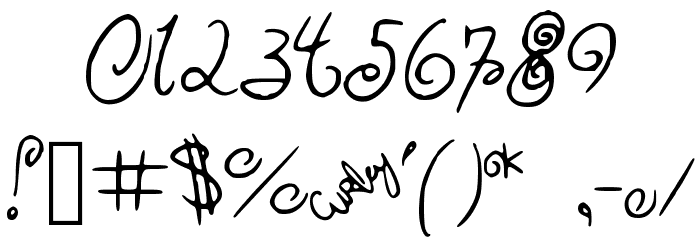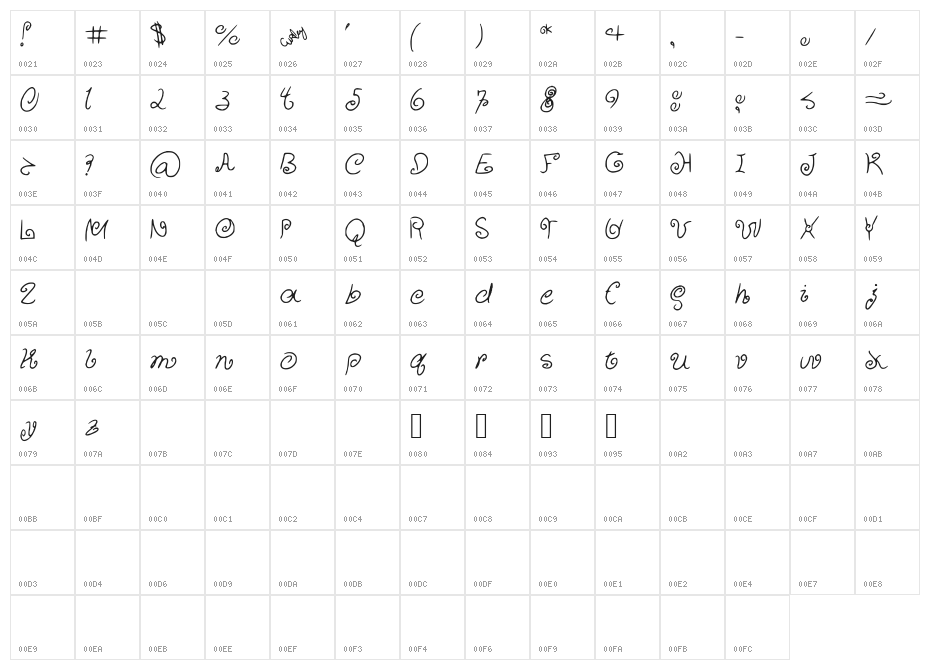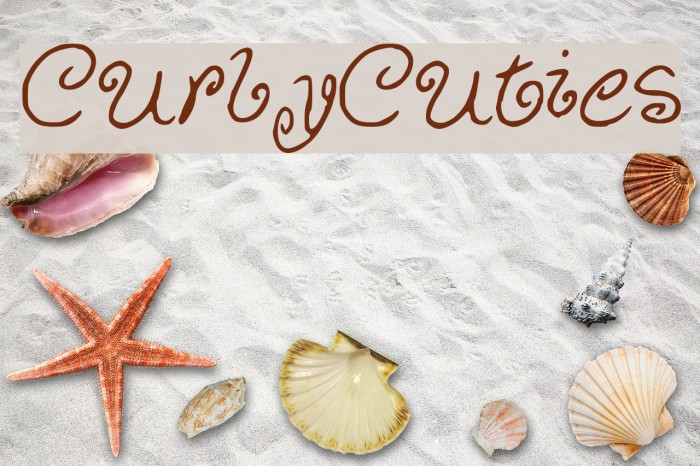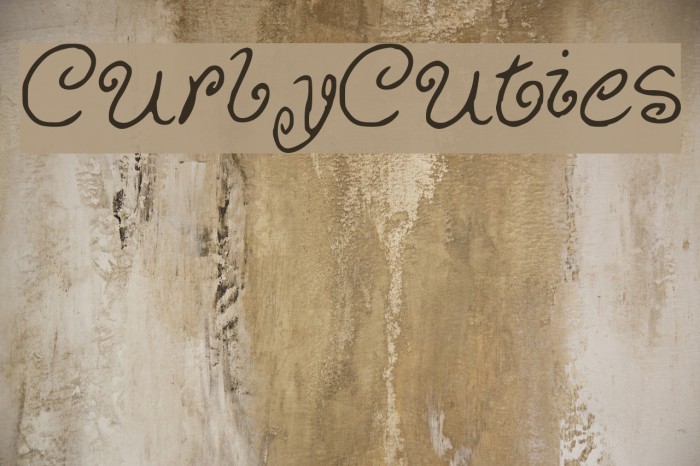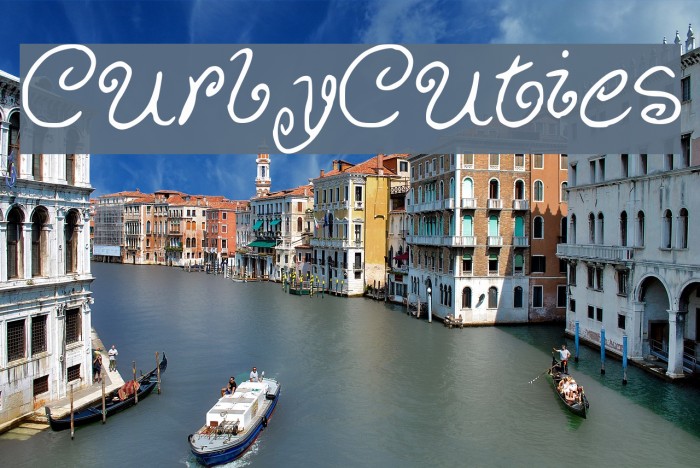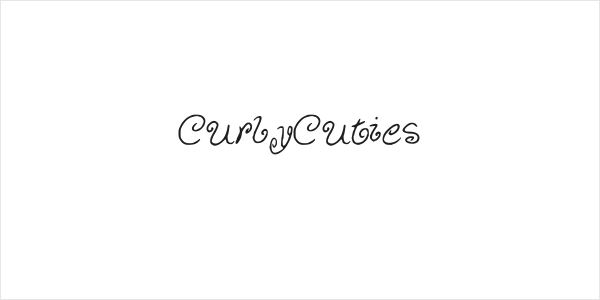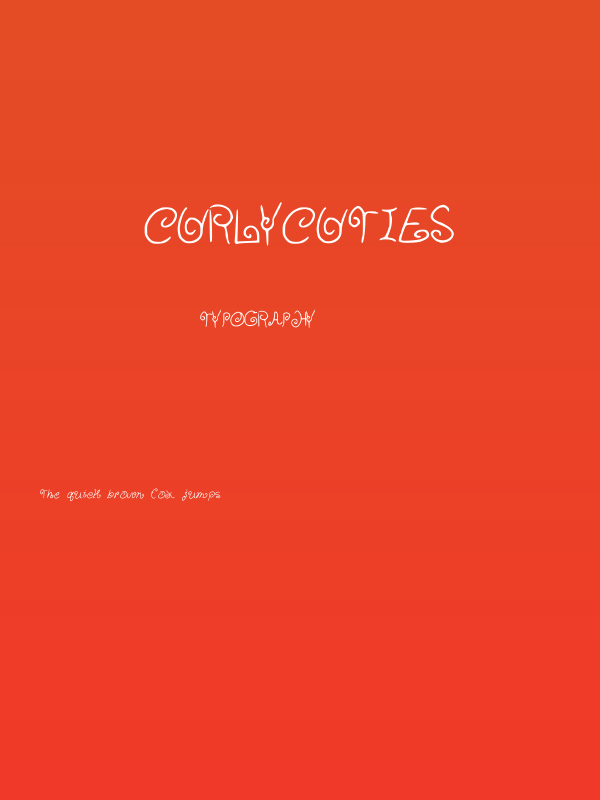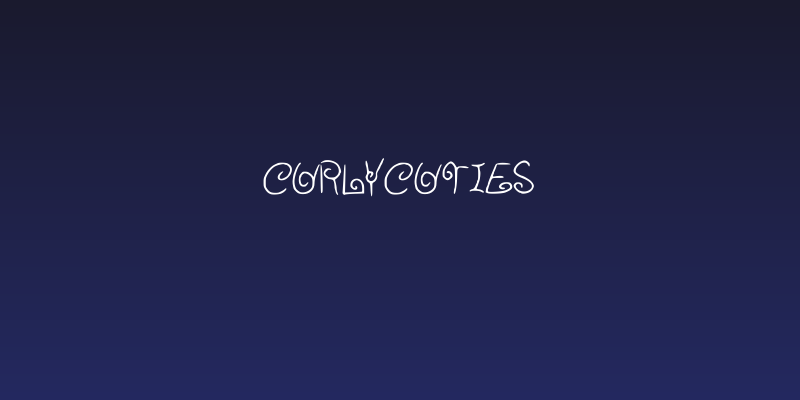
CurlyCuties Font
CurlyCuties Description
This font features a whimsical and playful design, characterized by its curly and looping strokes. Each letter is crafted with a sense of movement and fluidity, creating an energetic and lively appearance. The uppercase letters exhibit a consistent height with decorative swirls, while the lowercase letters maintain a similar style with slightly more variation in height and form. Numbers and special characters follow the same curly motif, ensuring a cohesive look throughout. The overall design is both unique and eye-catching, making it suitable for creative and informal applications.